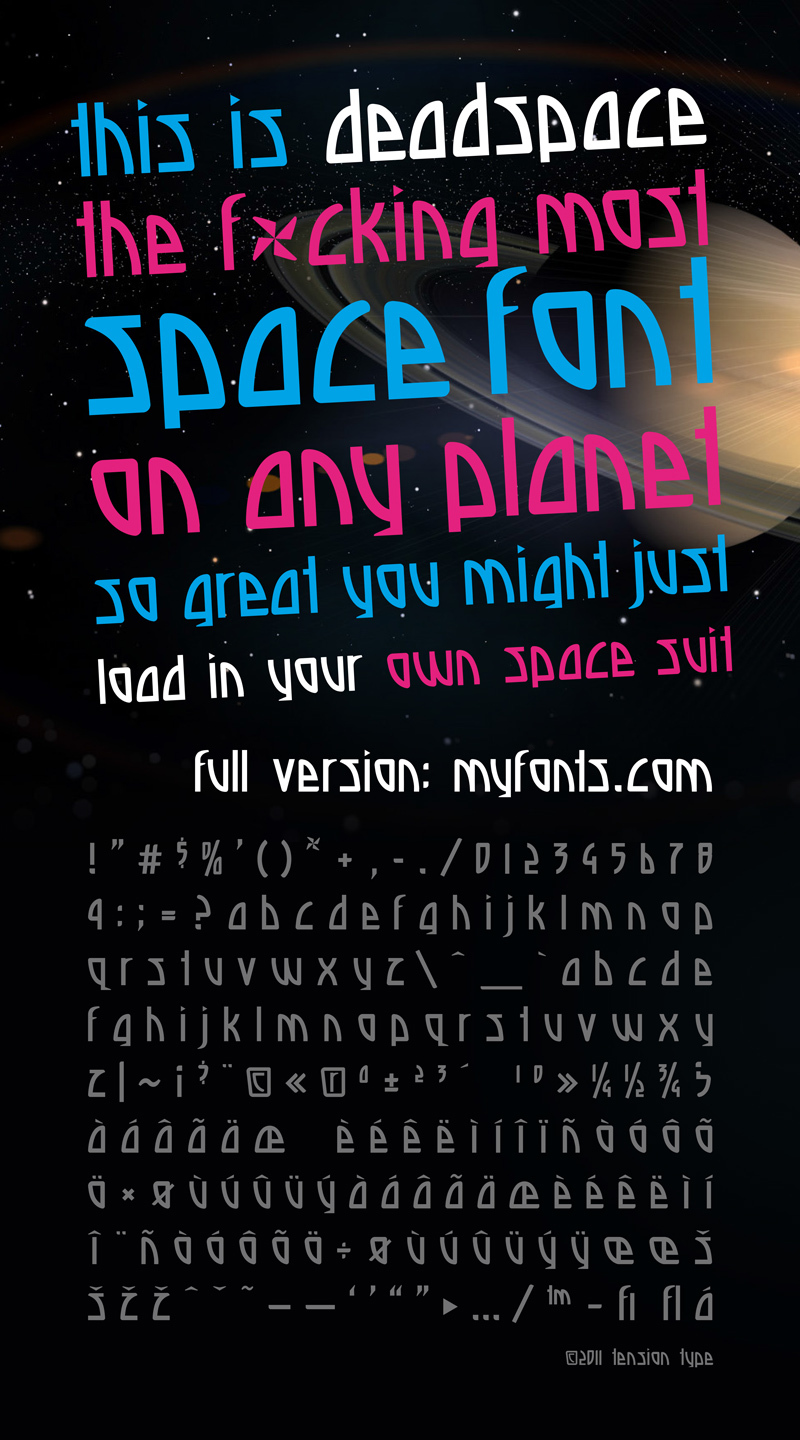
Deadspace by Michael Tension is a free futuristic display font with a distinctly retro, machine-age edge. Its tall, tightly fitted letters mix sweeping arches with abrupt right angles, and the shifting stroke widths create a strange mechanical silhouette that feels engineered rather than typed.
Science fiction and speculative technology are its clearest territory, making it a convincing choice for game branding, film title cards, and electronic music artwork. The same angular curves could also shape poster lettering or fashion graphics, especially when a project needs typography that looks salvaged from an unfamiliar spacecraft control panel or an old industrial interface.